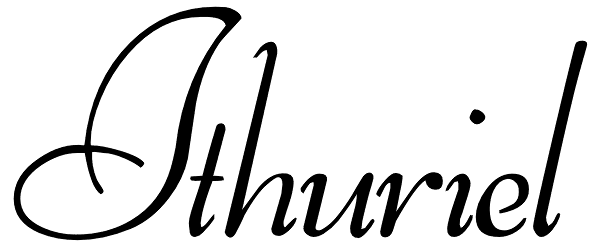
Ithuriel
Ithuriel is based on an art nouveau period font. It is in the style of a script font, but with letters which don't connect together, to produce a clearer, cleaner more readable effect. It's the kind of font you might have found on menus, hotel lobby...